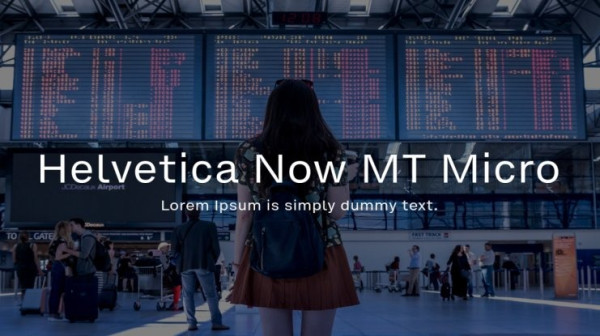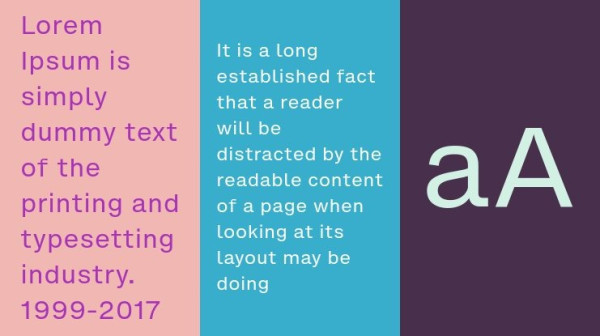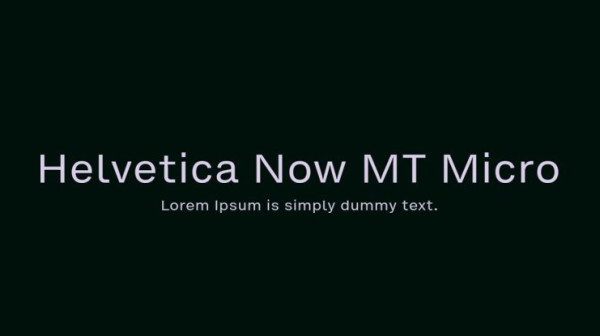
Helvetica Now MT Micro Font, is a sans serif stunning when combined or separately. This sans serif font style is legible and stunningly designed.
| Designer Name: | Monotype Studio |
| Classification: | Sans Serif Fonts, Style / Aesthetic Fonts |